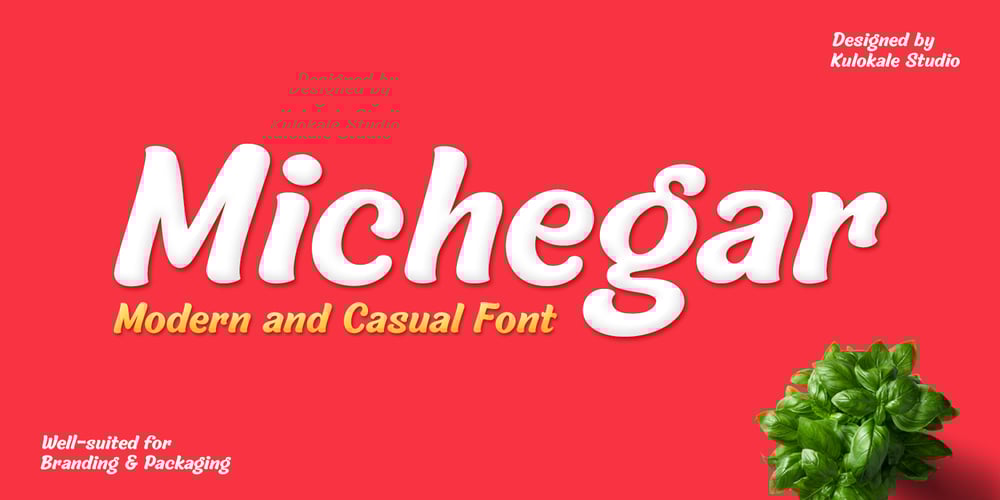
Michegar Font Family was designed by Eko Nur Cahyo and published by Kulokale. Michegar contains 1 styles and family package options. Michegar is a modern and casual display font. It has a unique style and will give your design a friendly and expressive look. Michegar is perfect for many different projects such as logos and branding, invitation, stationery, wedding designs, social media posts, advertisements, product packaging, product designs, labels, photography, watermark, special events or anything. We hope you enjoy the font and have fun! Thank You.